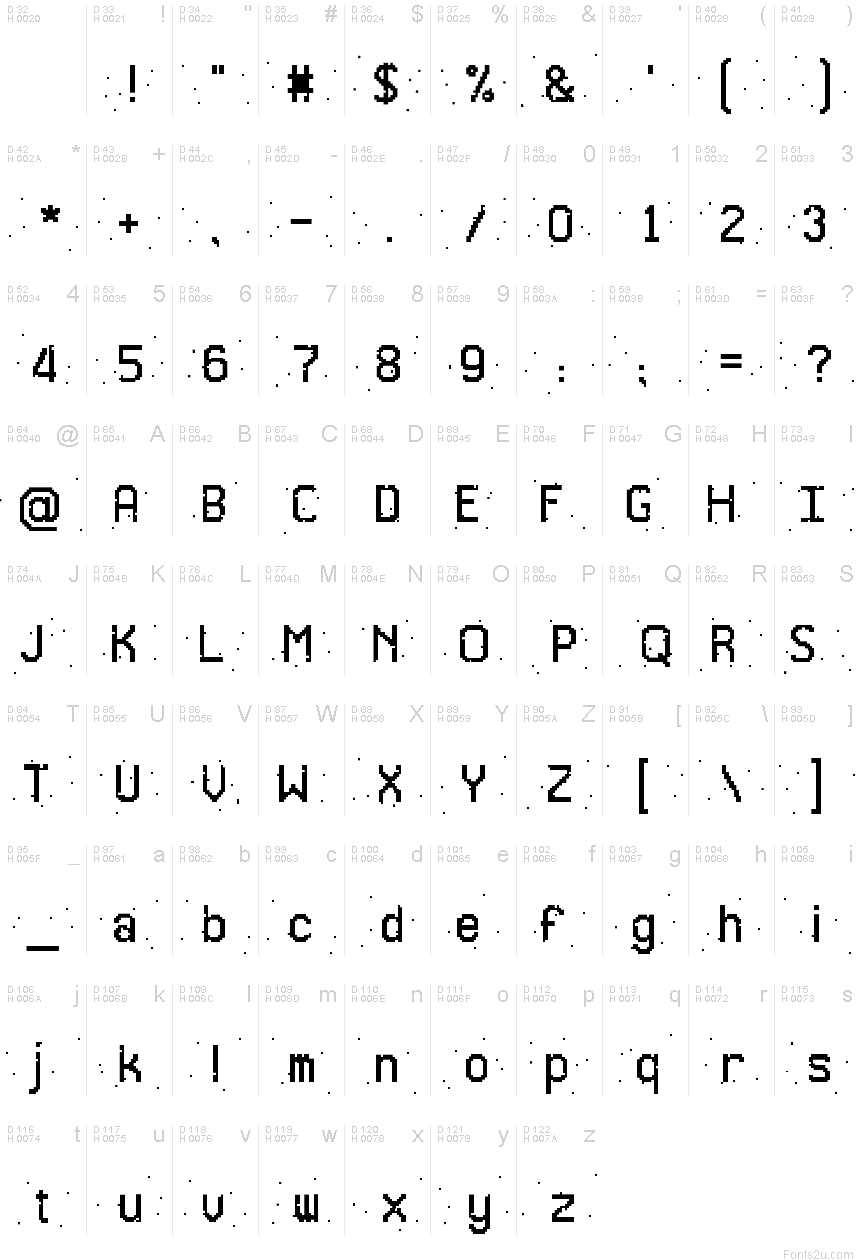
Glitch1
Glitch1 font by Jeff Rentsch is a free pixel bitmap font that looks like your screen just froze mid-frame. Each letter is built from chunky, square pixels, then fractured with stray dots and broken edges that feel like digital static. The result is raw, noisy, and a little chaotic—like a screenshot from a crashing arcade game or glitched VHS tape, frozen in time.
Using Glitch1, you can push anything cyberpunk, experimental, or lo-fi: album art, rave flyers, hacked-interface graphics, zines, motion titles, and game splash screens. This free font shines at large sizes where the scattered pixels stay sharp and intentional. Pair it with a very clean geometric sans for body text to heighten the contrast between glitch and order.
By Jeff Rentsch 1994